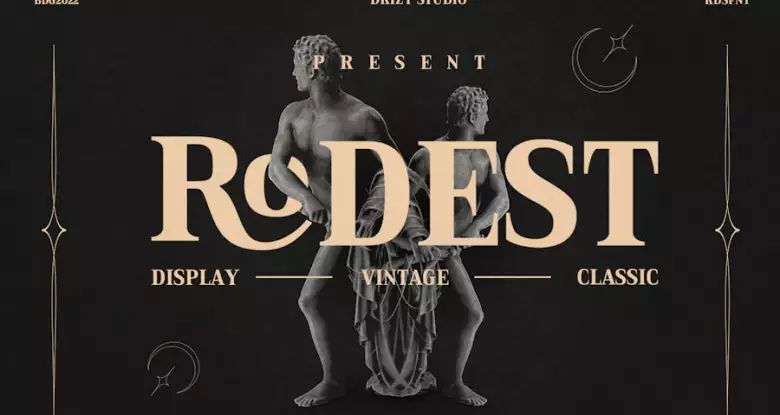
Rodest - Classic Serif Font
Serif
Rodest – Classic Serif Font
Rodest is a classic serif font from Drizy Studio. Offering all the styles you need for classic and vintage theme of the projects.
Rodest features: Uppercase & Lower case Punctuation & Numbers Multilingual Support Ligatures Alternates